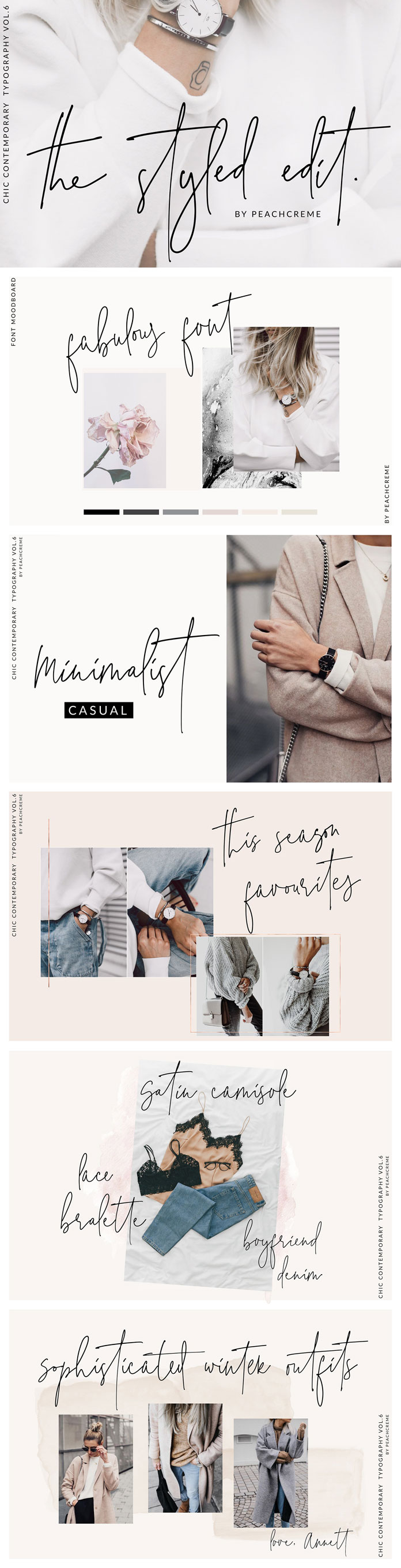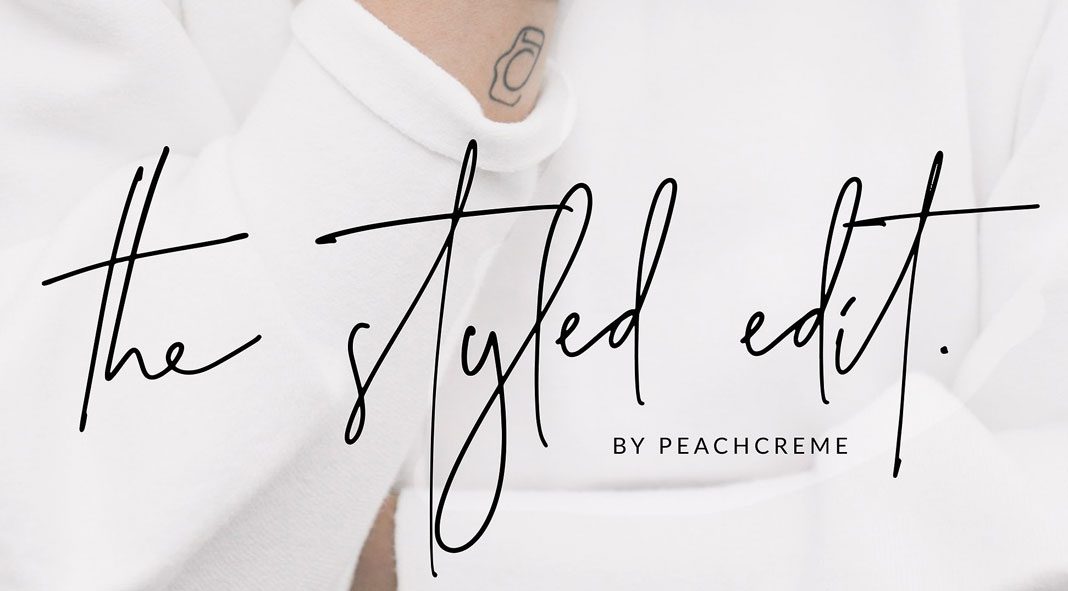
The Styled Edit, an elegant, handwritten script font designed and published by Gulya Ju of studio Peach Creme.
Here comes a stylish script font with a unique, handwritten appearance. The Styled Edit was designed by Gulya Ju for different needs such as blogging, social media, branding, wedding and birthday invites, etc. It is equipped with both uppercase and lowercase letters as well as numerals, a large range of punctuation and 90 ligatures to give your typographic work a more realistic handwritten style. In order to use the elegant swashes and other OpenType features, you need a professional application such as Adobe Illustrator, Photoshop or InDesign. You can get their newest versions from the Adobe Creative Cloud website, just check it out here.